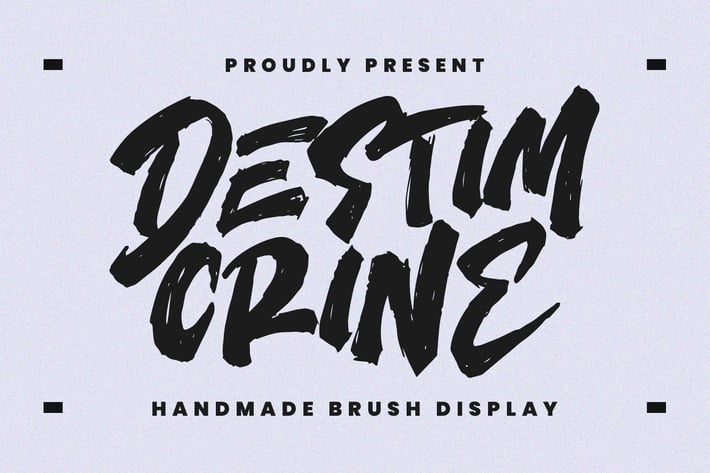
Destim Crine Handmade Brush Font
Give your designs an authentic brush handcrafted feel. "Destim Crine Handmade Brush Font" is perfectly suited to signature, stationery, logo, typography quotes, magazine or book cover, website header, flyer, clothing, branding, packaging design and more.